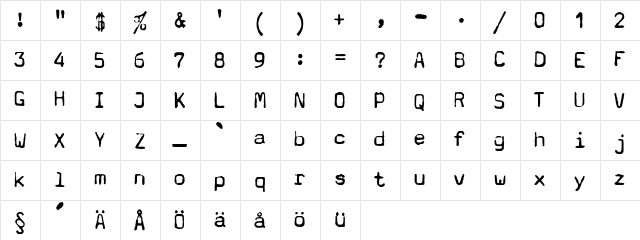
Typewriter - a602 (dead postman 2004) Regular
Design Context for Typewriter - a602 (dead postman 2004) Typeface
Typewriter - a602 (dead postman 2004) uses fixed-width spacing throughout, giving it the structured, systematic character associated with coding environments and technical documentation.
A natural fit for code editors, technical documentation, developer-focused branding, and terminal-inspired UI.
Pro Tip: Pair Typewriter - a602 (dead postman 2004) with a proportional sans for UI contexts where code-style labels and regular body copy need to coexist.